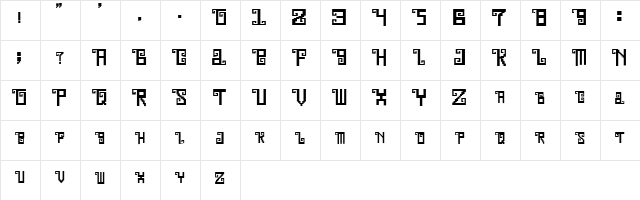
Chapultepec Regular
Design Context for Chapultepec
Chapultepec is a composed and adaptable typeface that performs quietly and consistently across a wide range of design contexts.